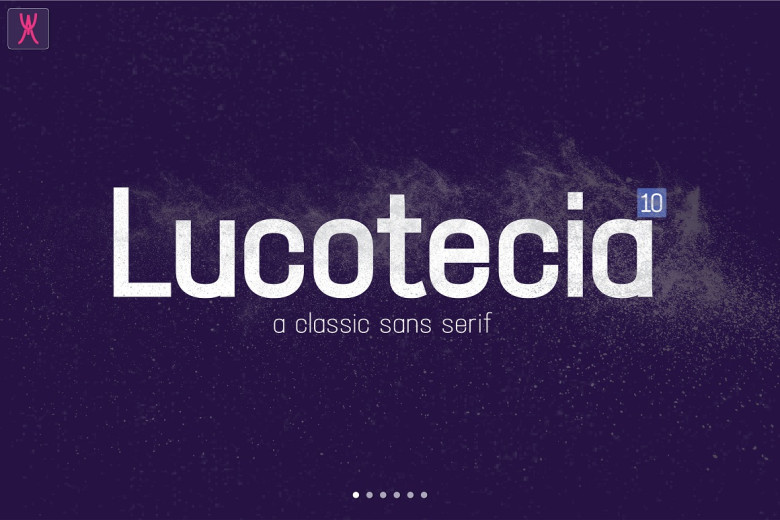
Lucotecia Font
Introducing LUCOTECIA . It’s a slick sans serif font that is perfect for any project you wish to create. Add this to your most loved design ideas, and notice how it makes them come alive.
Lucotecia Sans Serif Font